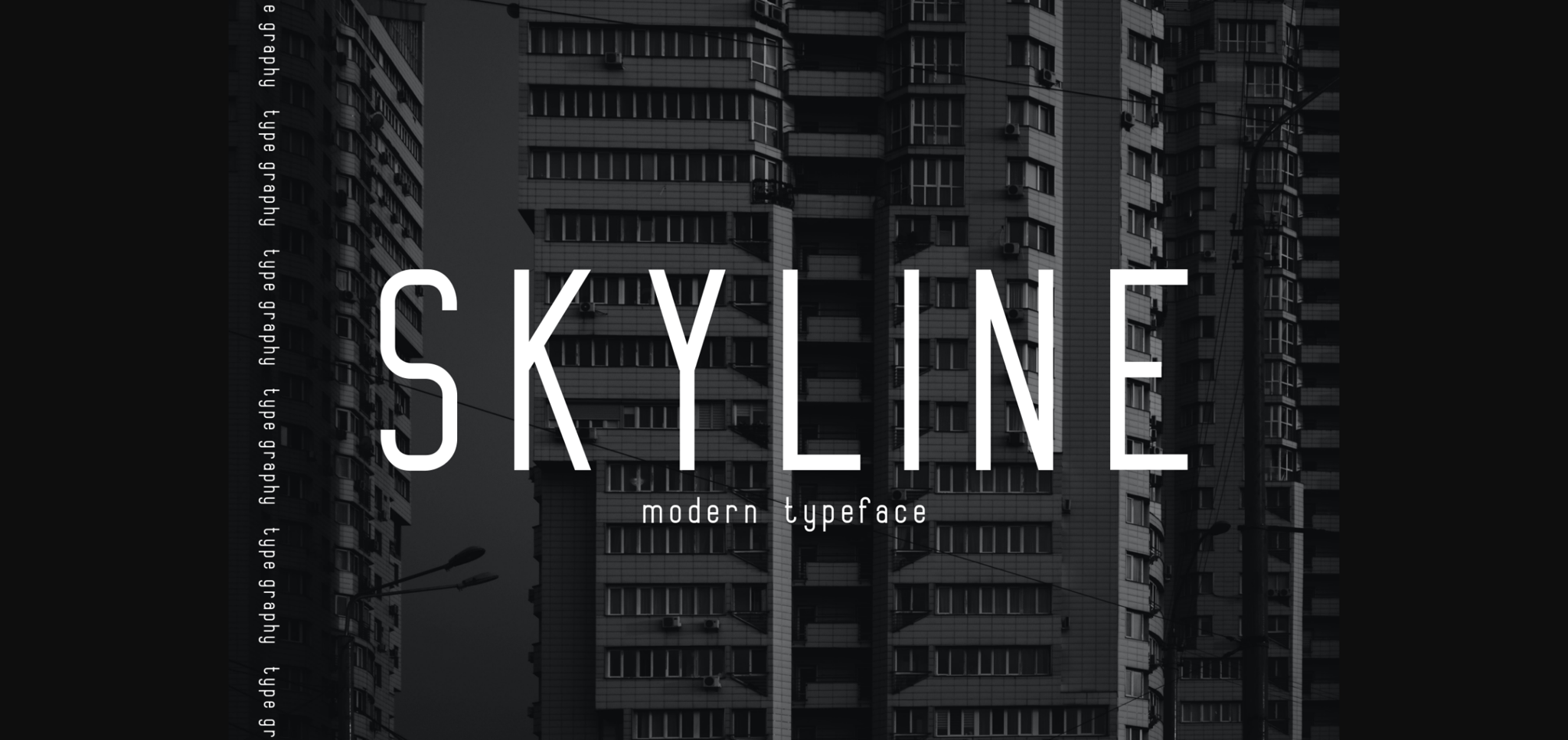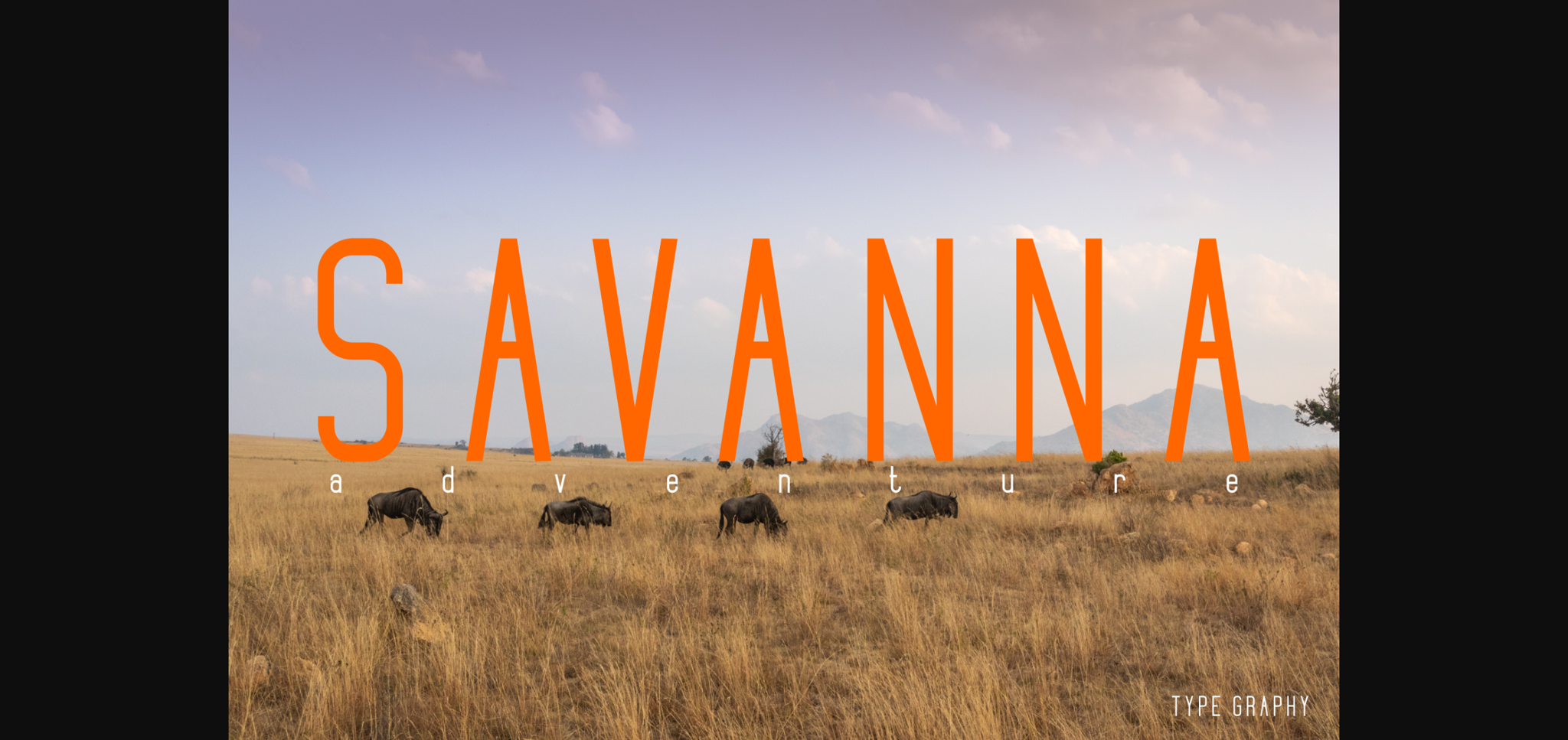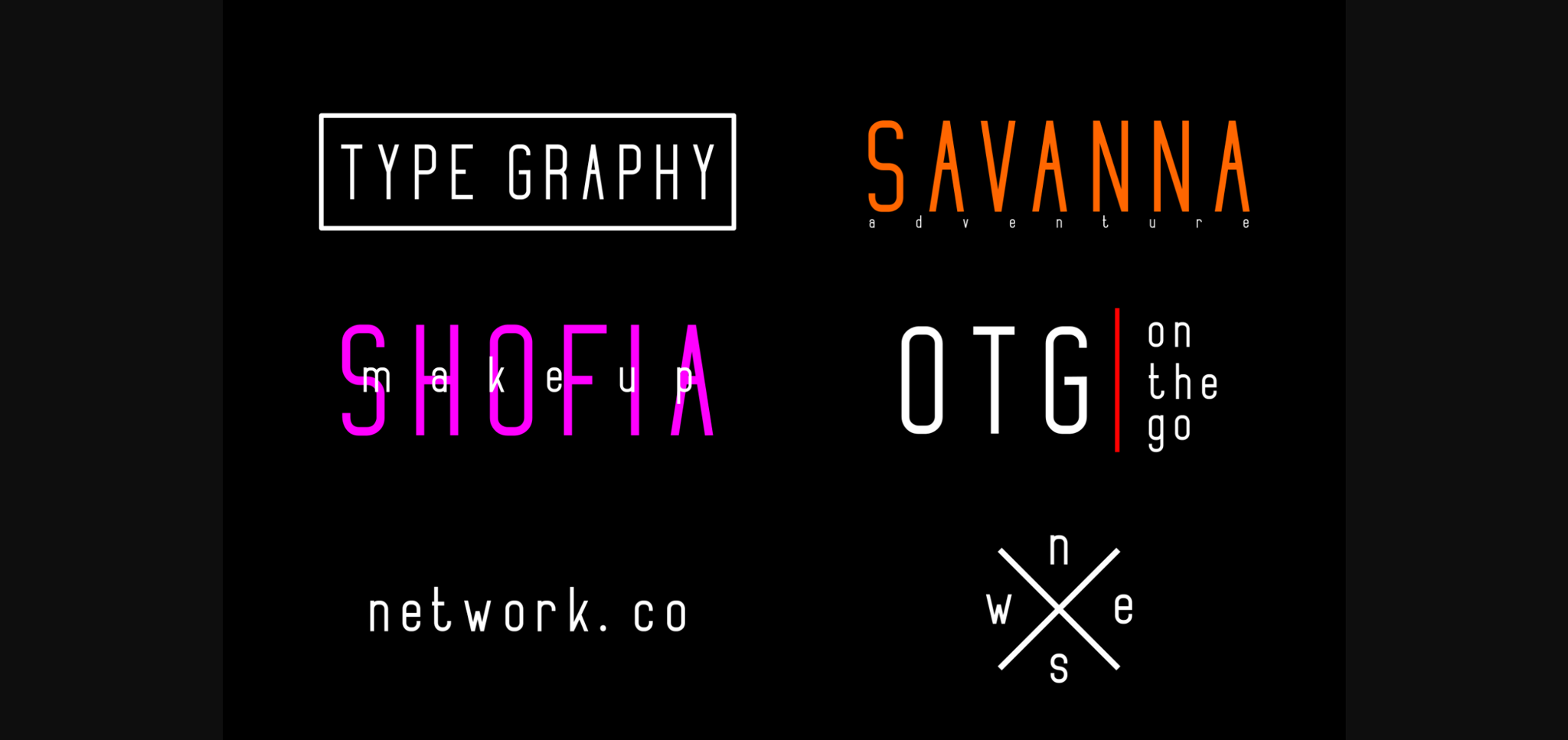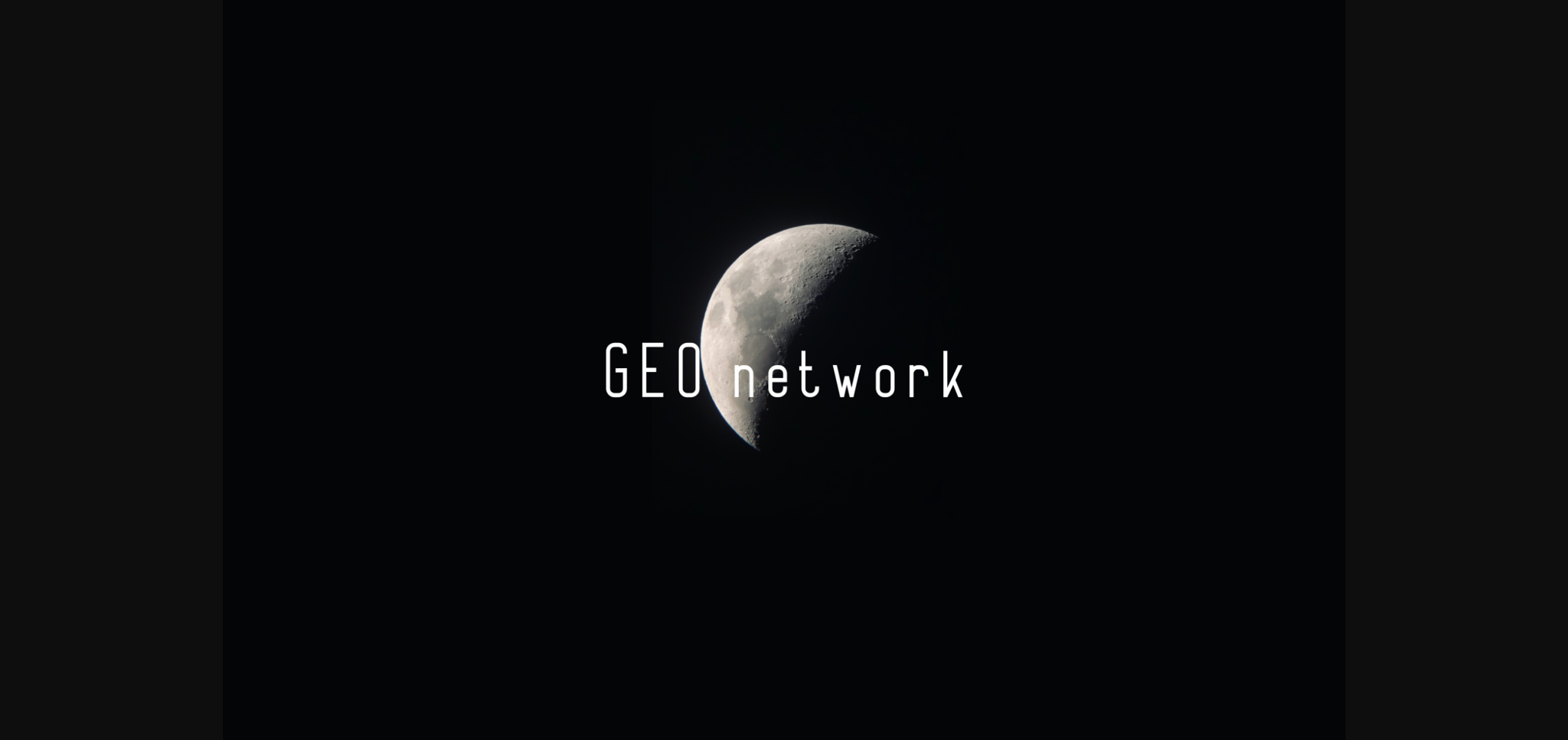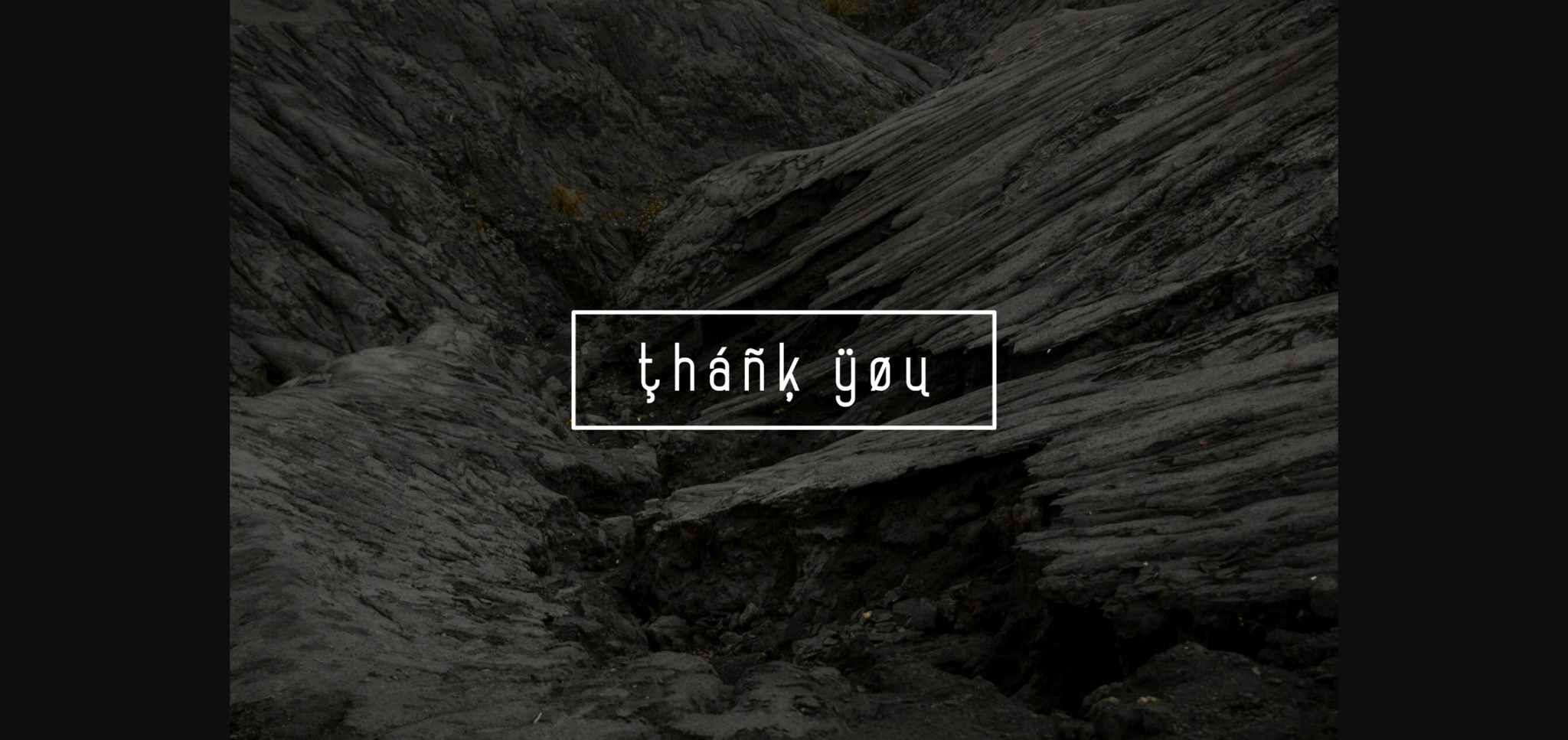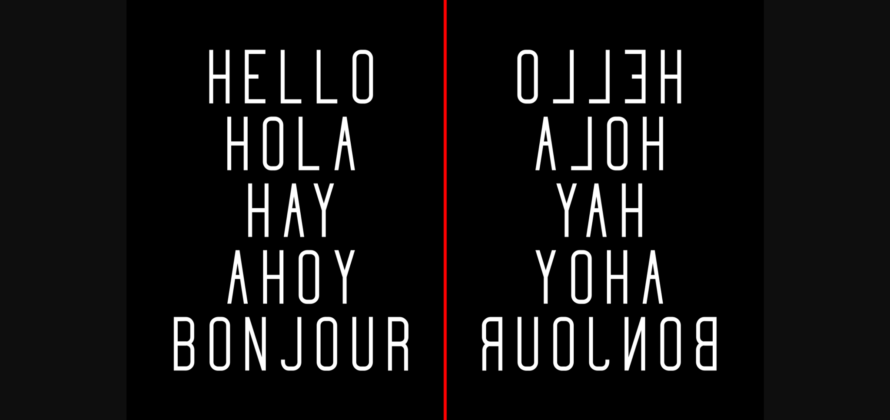
HomeSans Serif FontsSkyline Font Sans Serif Fonts Skyline Font FacebookXPinterestWhatsApp 1 of 8 ... Skyline Font Poster 2... Skyline Font Poster 3... Skyline Font Poster 4... Skyline Font Poster 5... Skyline Font Poster 6... Skyline Font Poster 7... Skyline Font Poster 8... About Skyline Font Skyline is a simple and striking Sans Serif font that is available in both uppercase and lowercase letters with a wide range of other characters available making this an incredibly versatile font. DOWNLOAD NOW People also explored Xmas Knitted Font Xyzai Rounthem Font Small World Font Hello Calligraphys Font Handwritten Font Bundle Vol 2 Childish Font Forever Love Font Christmas Gift Font 289 0 TagsSkylineSkyline Font Previous articleHailey FontNext articleLanding Font LEAVE A REPLY Cancel reply Comment: Please enter your comment! Name:* Please enter your name here Email:* You have entered an incorrect email address! Please enter your email address here Website: Save my name, email, and website in this browser for the next time I comment. Personal Use Free Creativo Personal Use Free Read more about this font Winter Soldier Personal Use Free Read more about this font Dream Orphans Personal Use Free Read more about this font Girl Personal Use Free Read more about this font BLOG Free Fonts Risk: Why Free Fonts Can Be Dangerous for Designers Free Fonts Risk: Why Free Fonts Can Be Dangerous for Designers Using free fonts is a common practice in web and graphic design. However, the... Using Fonts in Digital Marketing: Tips to Strengthen Your Brand Identity Best Fonts for T-Shirt Design – Top 2025 Picks 5 Fonts That Will Dominate Design Trends in 2026